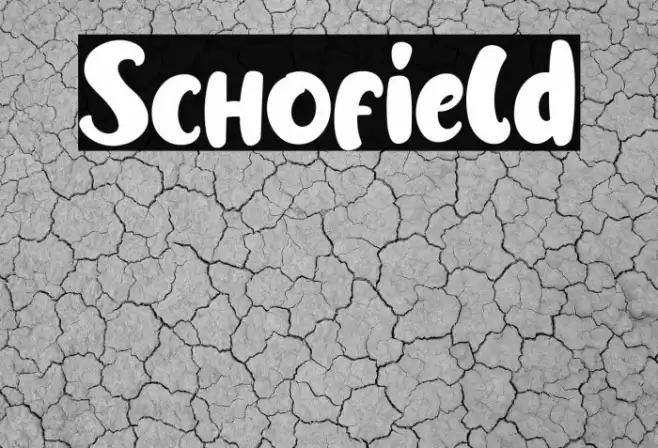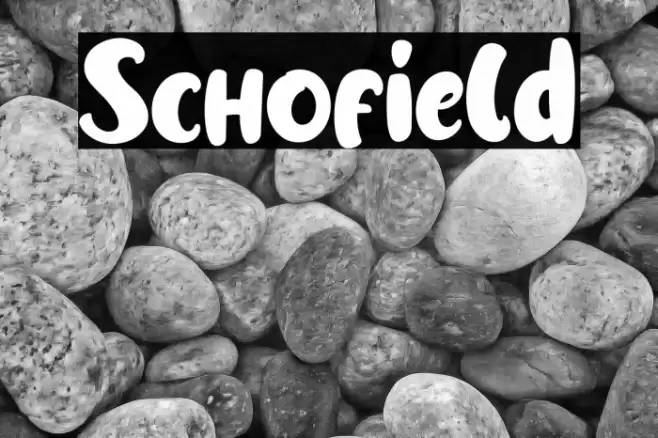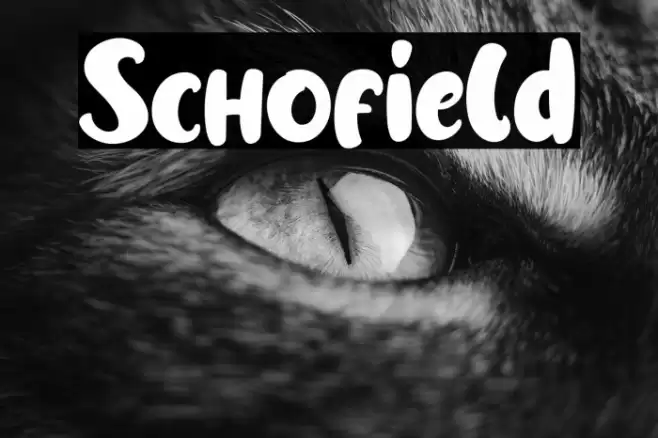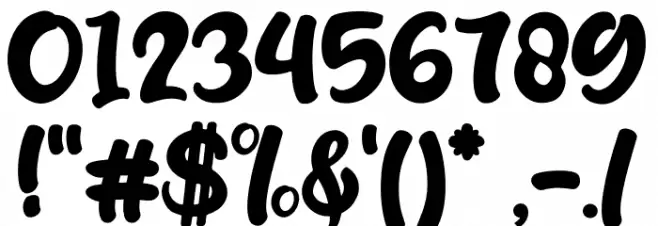
Schofield Font
Schofield Description
This font exhibits a bold and playful style, characterized by its thick, rounded strokes and slightly irregular shapes. The letters have a hand-drawn appearance, giving them a casual and friendly vibe. The uppercase and lowercase letters maintain a consistent weight, contributing to a cohesive look. The numbers and special characters are designed with the same playful aesthetic, ensuring uniformity across all elements. This font's unique style makes it stand out, while still being legible and versatile for various design needs.
A bold, playful font with thick, rounded strokes and a hand-drawn feel from Cartoon fonts.
- Proposed Projects: Ideal for children's books, playful branding, casual invitations, and creative posters.
- Overall Style: Playful